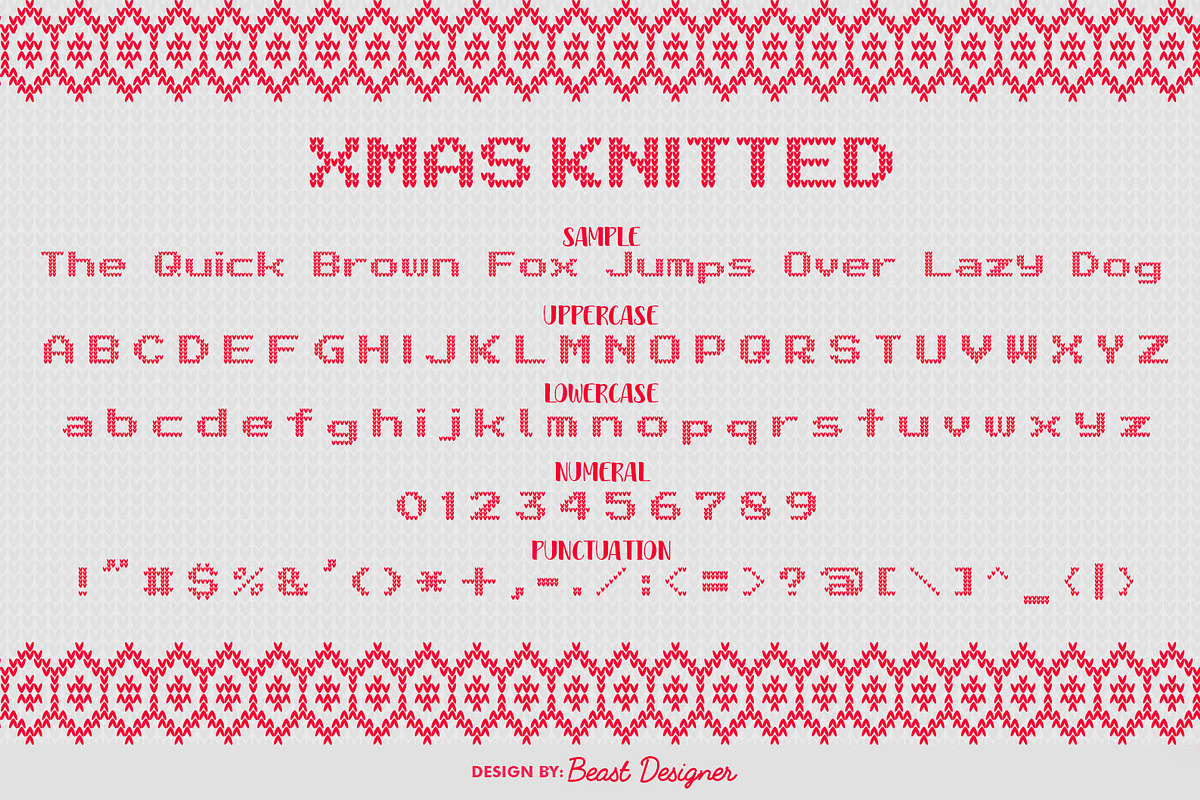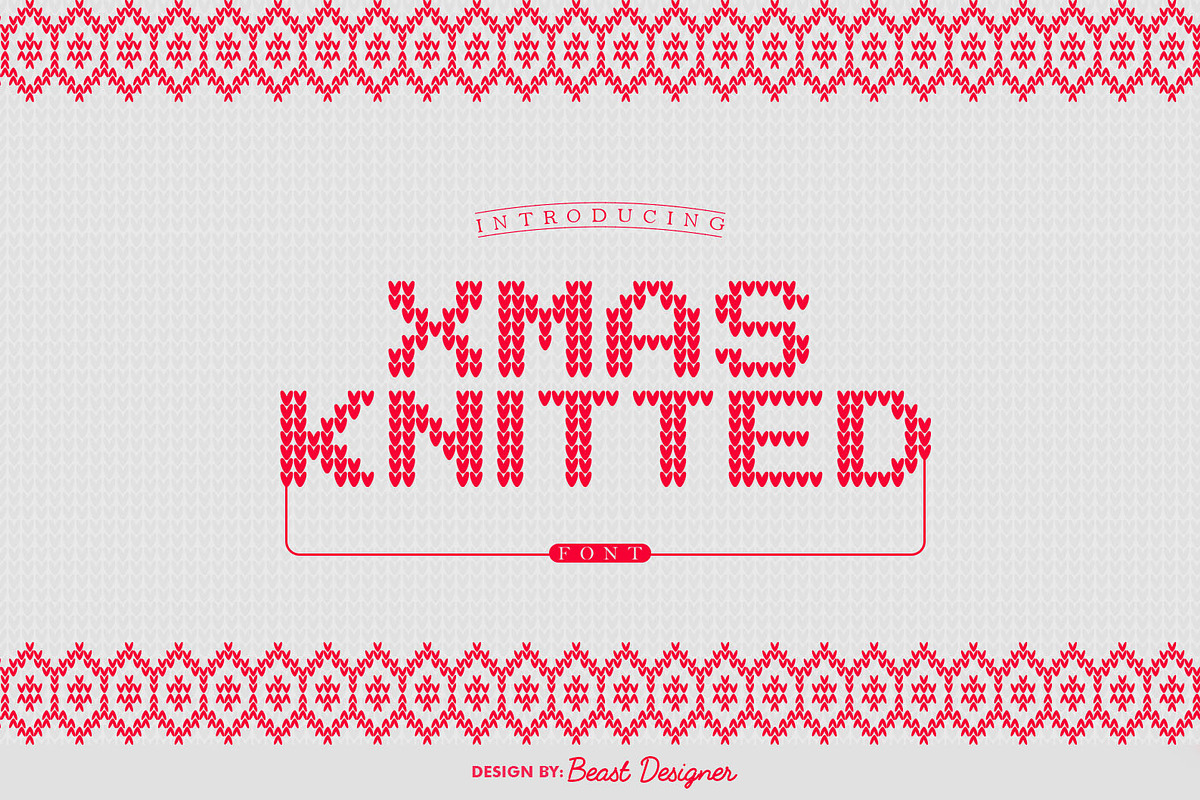
Xmas Knitted
Xmas Knitted is a whimsical decorative display font designed to evoke the cozy feeling of knitted crafts. Its distinctive appearance, mimicking the texture and patterns of knitting, makes it ideal for projects requiring a handcrafted and charming aesthetic. Perfect for holiday cards, invitations, branding materials aimed at a handmade or artisanal market.